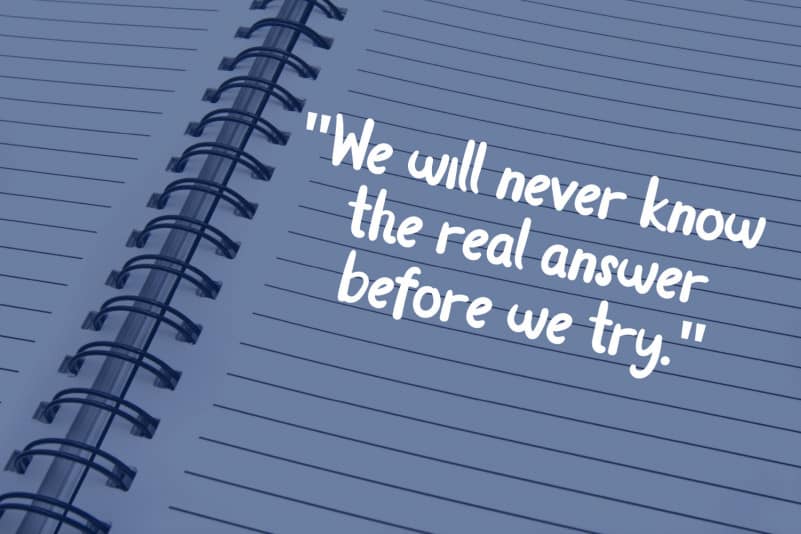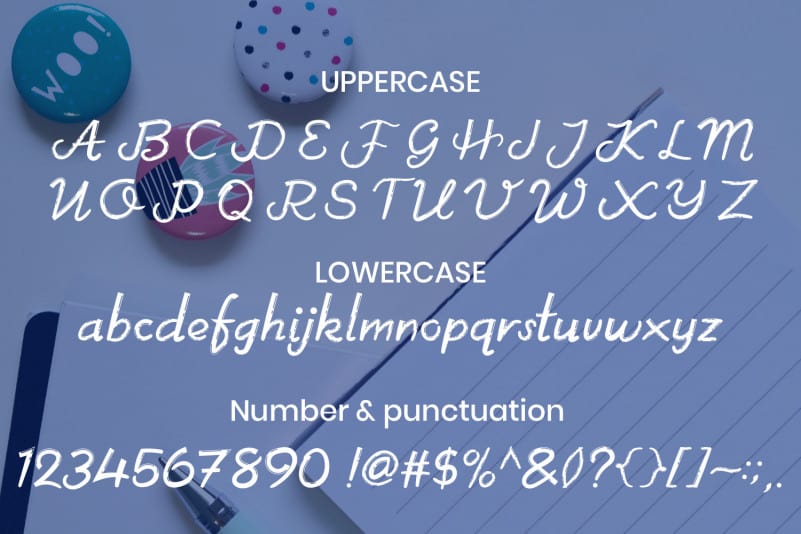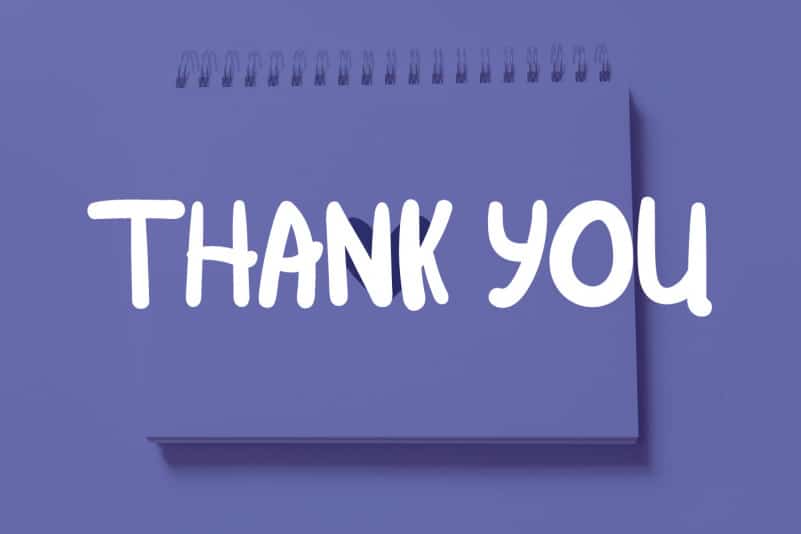
Note and Notes Display Font
Note and Notes Display Font is a cute and quirky display font. It will add an incredibly joyful touch to your designs. Add this beautiful display font to each of your creative ideas and notice how it makes them stand out!